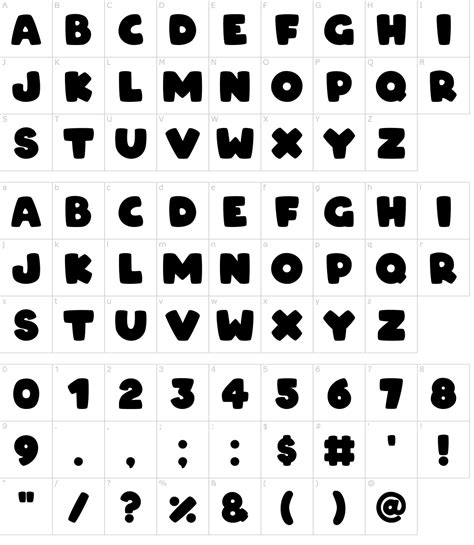
ARCO Free Font on Behance
Arco Typography-Regular Font. Web arco is a funny typography, with rounded edges, with more than 80 characters, its alphabets in uppercase.
Web arco is a funny typography, with rounded edges, with more than 80 characters, its alphabets in uppercase.
Web arco is a funny typography, with rounded edges, with more than 80 characters, its alphabets in uppercase. Web arco is a funny typography, with rounded edges, with more than 80 characters, its alphabets in uppercase.